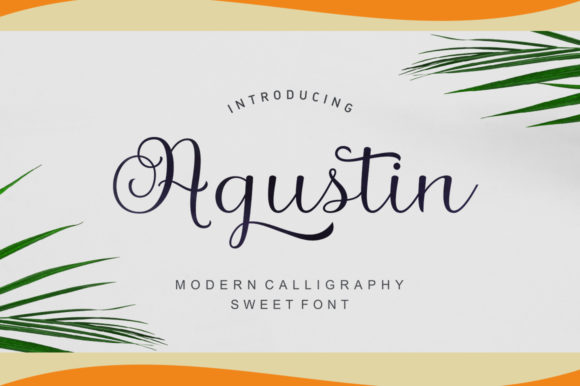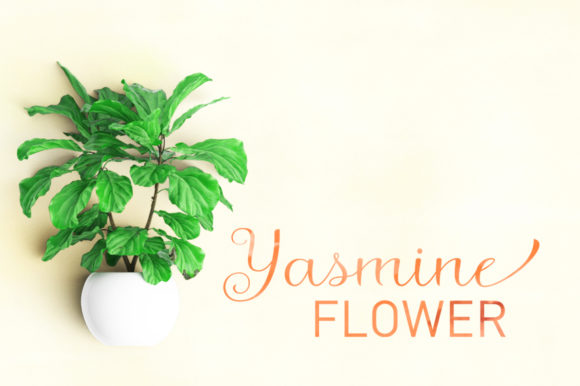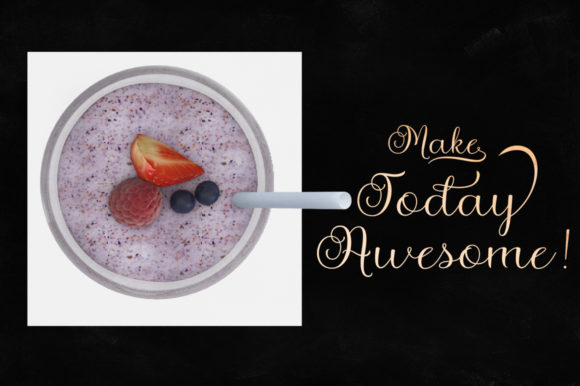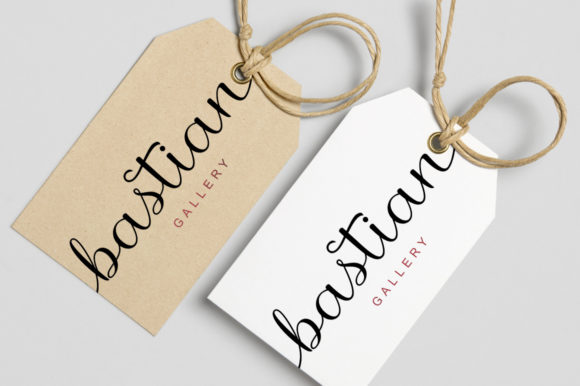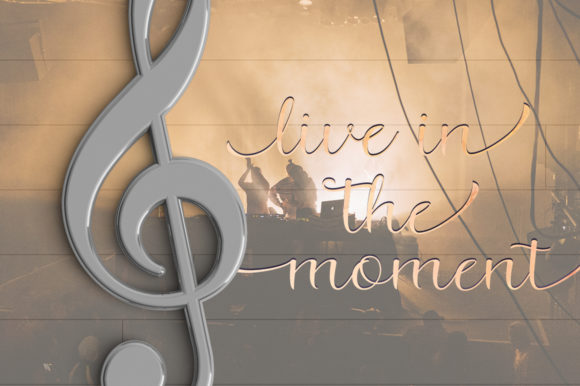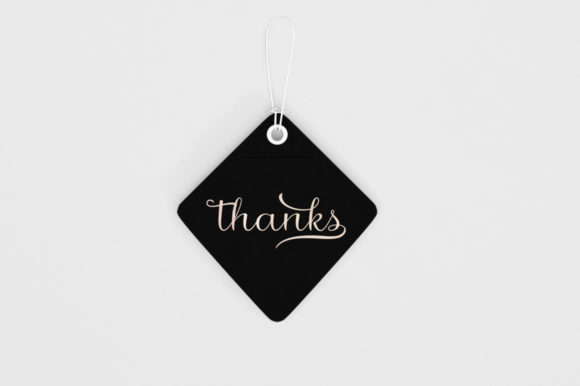
Agustin Script Font
About Agustin Script Font
The Agustin is a modern handwritten script. It’s easy to use and has a great readability. Perfect for branding designs!